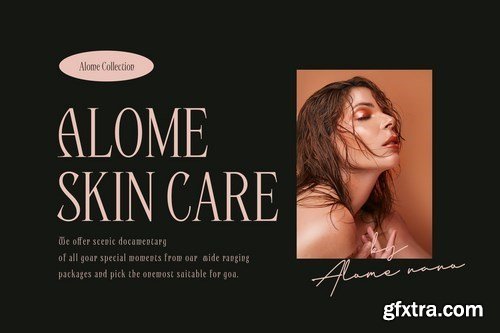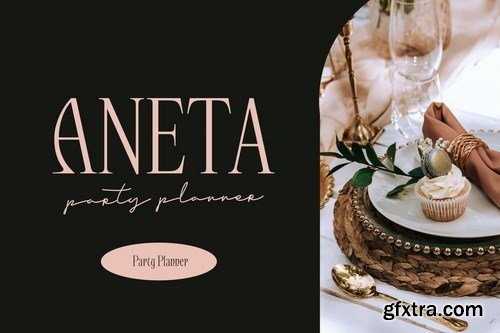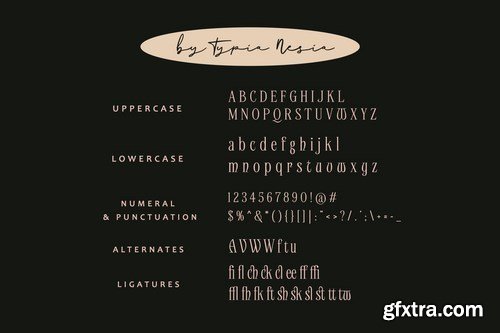
Quietwave - Luxury Beauty Expressive Serif - Classic Elegant Fancy Display Font
Quietwave comes with some alternates and ligatures, so you can combine it to make a perfect typography design. It is perfect for your up coming projects. Such as luxury logo and branding, classy editorial design, woman magazine, cosmetic brand, fashion promotional, art gallery branding, museum, historical of architectural, boutique branding, stationery design, blog design, modern advertising design, card invitation, art quote, home decor, book/cover title, special events and any more.